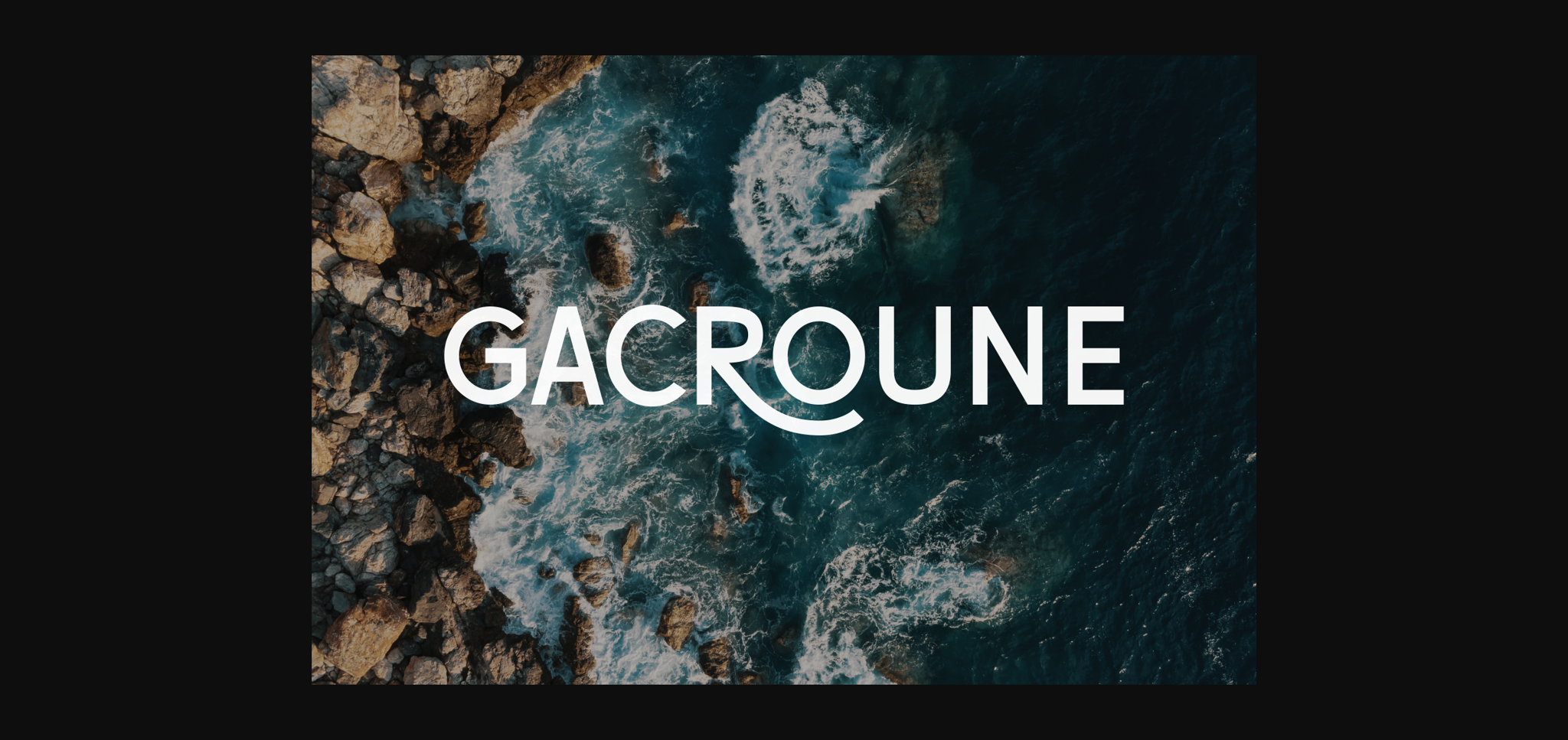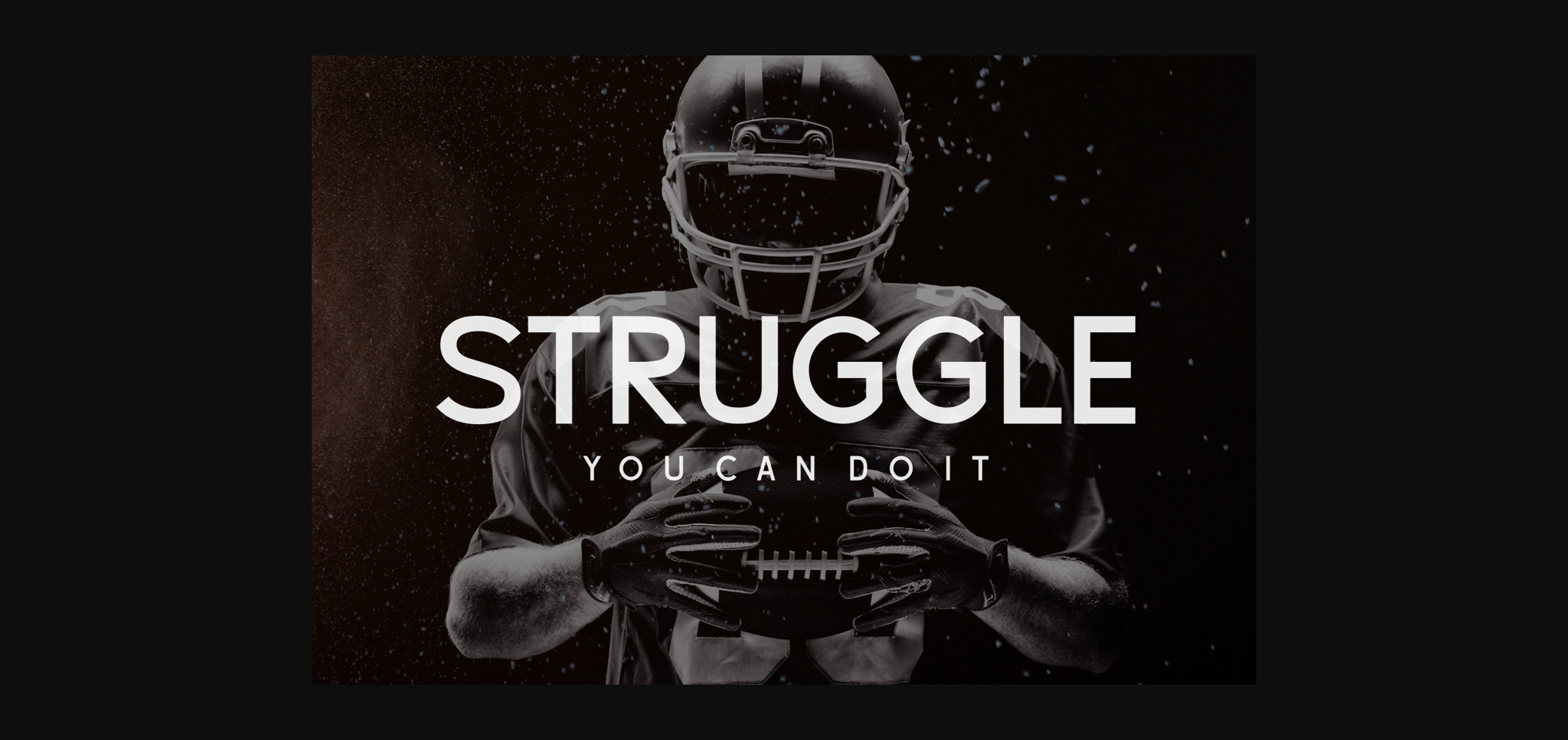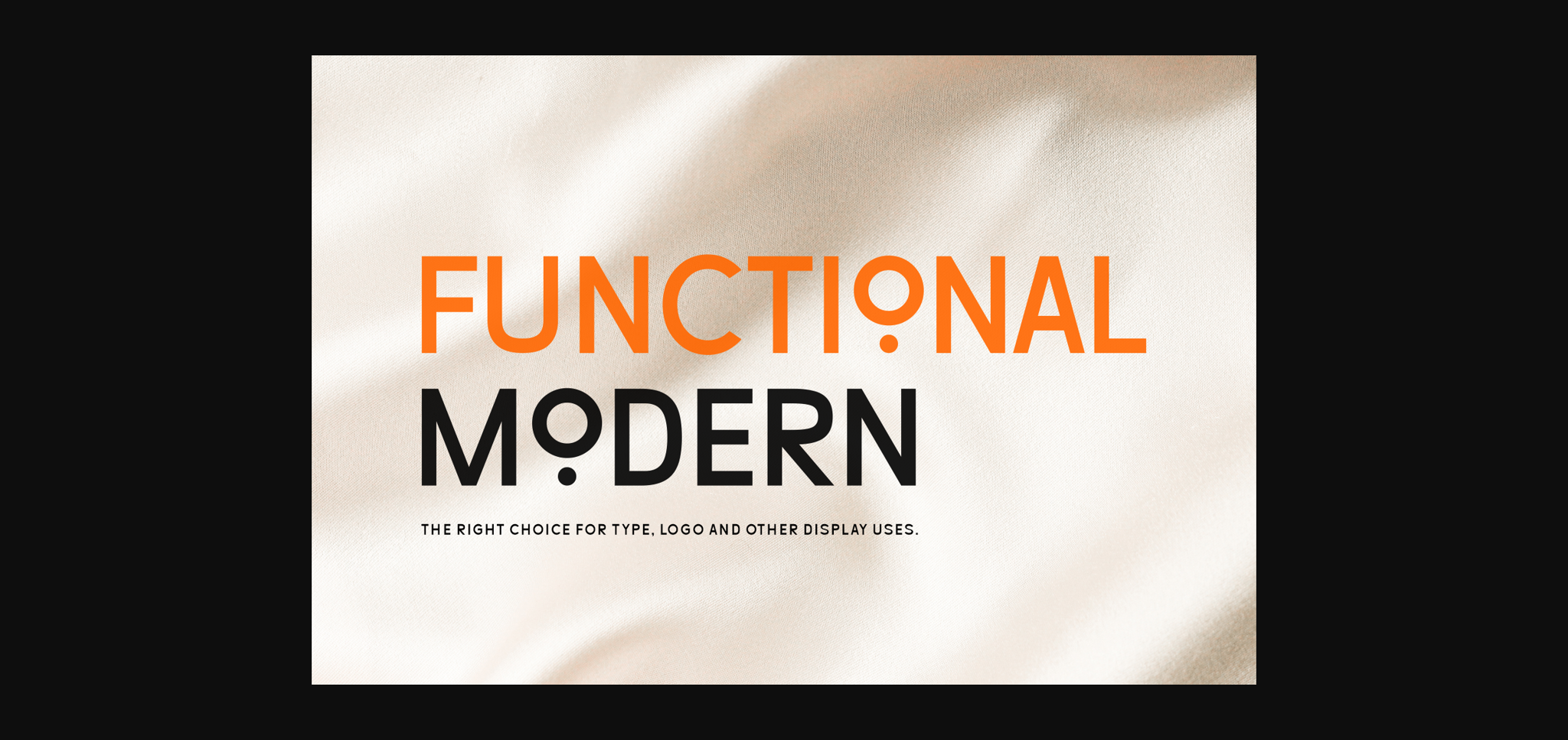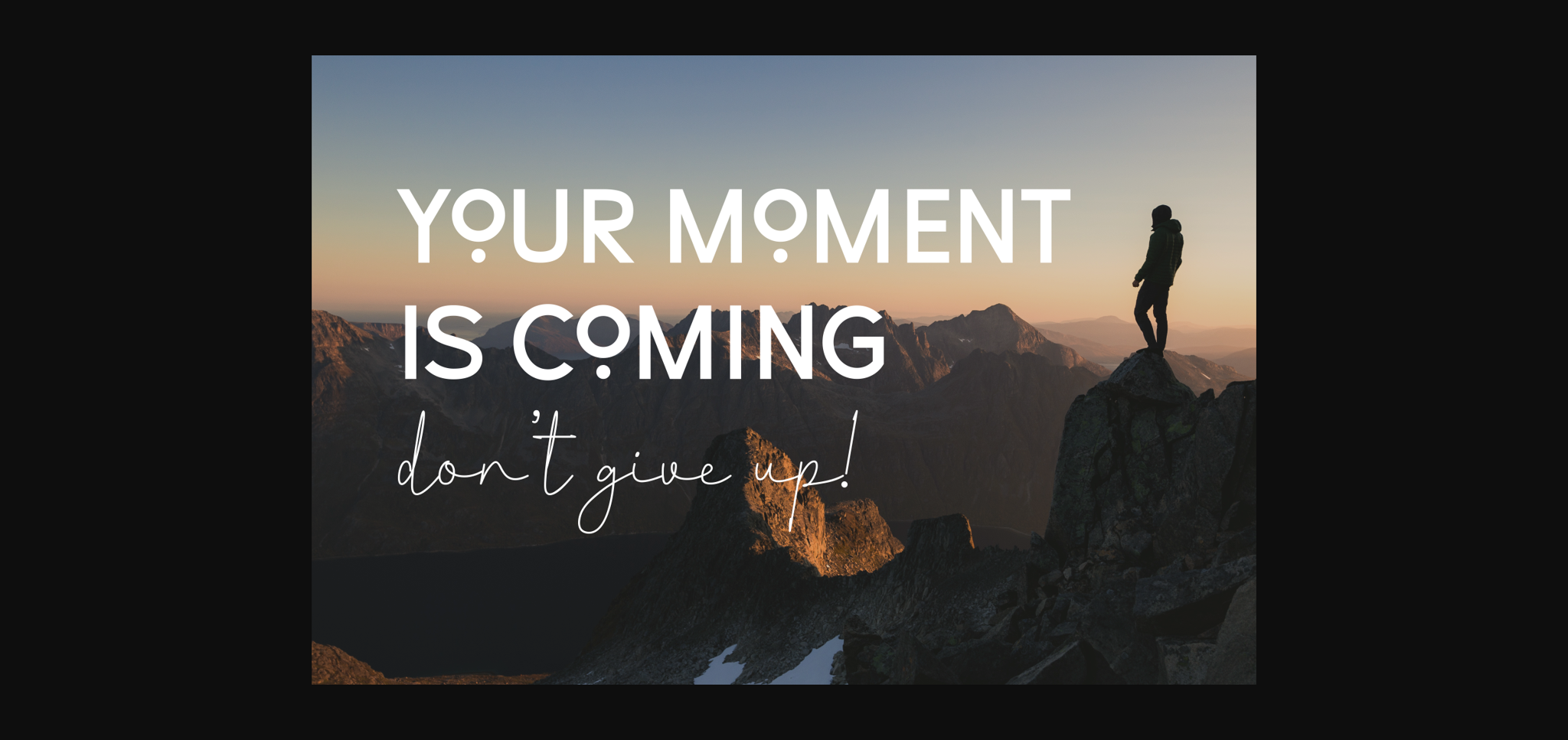
About Gacroune Font
Gacroune is a sleek and modern display sans serif font designed to make a bold statement. With clean lines and a contemporary aesthetic, Gacroune is perfect for headlines, titles, and other prominent text. Its geometric shapes and balanced proportions contribute to a sharp and sophisticated look, ensuring readability while exuding a touch of stylish simplicity. Whether used in print or digital media, Gacroune adds a touch of modern elegance to any design.